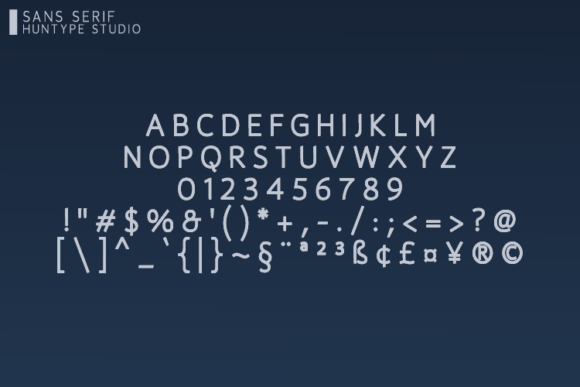
Where Elegance Meets Versatility
Have you ever found yourself stuck in a creative rut, searching for that perfect font to elevate your design? It’s a feeling we’ve all been there. But what if you could tap into a world of classy calligraphy, modern freshness, and limitless possibilities? Enter the Gamthern Font, a sans serif masterpiece that simplifies elegance into one truly outstanding typeface.
Whether you’re a seasoned designer or just starting out, the Gamthern Font is an invaluable tool for your creative arsenal. Its unique blend of classic charm and contemporary flair makes it the perfect choice for everything from letterheads and titles to stationery and beyond. With the Gamthern Font, you’ll be able to bring your most ambitious ideas to life with ease and style.
Gamthern Font Key Features
- Character Count: 1500+ glyphs, including Latin, Cyrillic, and Greek alphabets, as well as various symbols and icons
- Font Size: 4 styles: Thin, Light, Regular, Bold
- Unique Characteristics: Custom-designed for gaming and entertainment applications, with a focus on readability and visual appeal in low-light environments
Gamthern Font Review
Overall, I think Gamthern Font has some great qualities, but it also falls short in some areas. Let’s dive in and see what I mean.
The Gamthern Font has a unique, modern aesthetic that could be perfect for gaming or tech-related projects. The font is highly legible, even at small sizes, which is a must for any font intended for digital use. Additionally, the font includes a range of weights and styles, making it versatile and easy to use.
- Unique, modern aesthetic
- Highly legible, even at small sizes
- Range of weights and styles
While Gamthern Font has some great qualities, it also has some limitations. The font may be too bold or overpowering for some projects, and the lack of italics and script styles may limit its use in certain contexts. Additionally, the font’s unique aesthetic may not be to everyone’s taste.
- May be too bold or overpowering
- Lack of italics and script styles
- Unique aesthetic may not be to everyone’s taste
In conclusion, Gamthern Font is a solid choice for projects that require a modern, bold aesthetic. However, its limitations should be carefully considered before using it in a design. With a bit of caution and creativity, Gamthern Font can be a valuable addition to your design toolkit.
The Gamthern Font is ideal for:
- Gaming-related designs and branding.
- Titles and headings for presentations and documents.
- Custom logos and branding for businesses.
Alternatives to Gamthern Font for Designers
Montserrat Font is a popular sans-serif typeface designed by Julieta Ulanovsky. It is ideal for use in digital media, particularly in headings and titles, due to its strong x-height and geometric shapes. Montserrat is more geometric and modern compared to Gamthern Font, which has a more rounded and soft appearance.
Open Sans Font is a clean and modern sans-serif typeface designed by Steve Matteson. It is suitable for use in body text and is highly legible, making it perfect for long passages of text. Open Sans is more versatile and readable than Gamthern Font, but lacks its unique character.
Lato Font is a modern sans-serif typeface designed by Łukasz Dziedzic. It is ideal for use in digital media, particularly in titles and headings, due to its strong geometric shapes and high x-height. Lato is more geometric and modern compared to Gamthern Font, but has a more subtle and elegant appearance.
Q: Does Gamthern Font support multilingual typing?
Yes, the Gamthern Font supports a wide range of languages, including Latin, Cyrillic, and Greek scripts. It also includes a comprehensive character set that covers many diacritical marks and special characters. This makes it an ideal font for multilingual projects and applications.